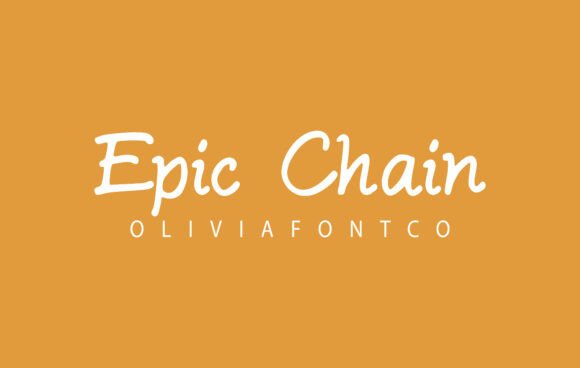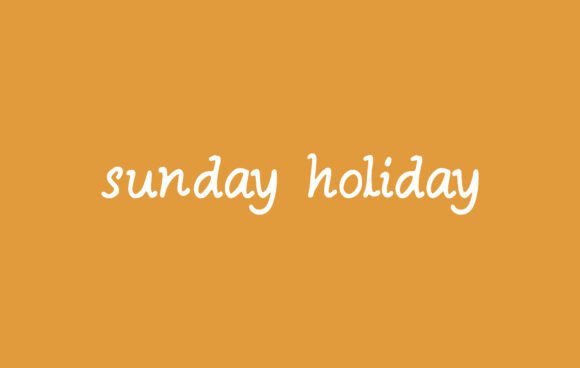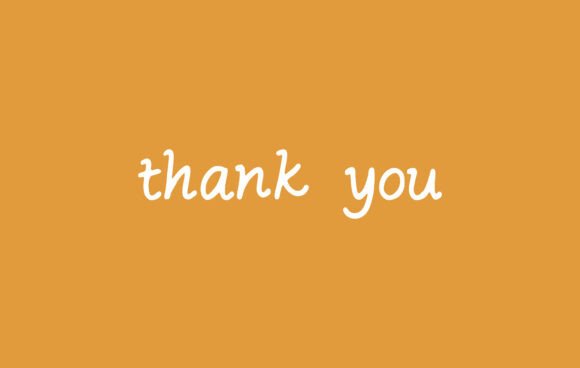
Epic Chain Font: Authentic Handwritten Script for Wedding Design
About the Epic Chain Font
Introducing the Epic Chain Font, a beautifully crafted typeface designed to elevate your creative projects. Epic Chain font is an authentic handwritten font with a romantic touch. Expertly designed to be a true favorite, this font has the potential to take your creative ideas to the highest level
Its romantic, handwritten style makes Epic Chain ideal for headlines, short text blocks in branding materials, and projects requiring a touch of elegance, such as wedding invitations or luxury product packaging. However, its less-than-optimal letter spacing and inherent irregularity make it unsuitable for body text or UI elements where high legibility over long passages is crucial.
The font’s personality is best described as romantic and slightly whimsical. To balance this, pairing it with a clean sans-serif like Lato for body copy or a geometric sans-serif like Montserrat for more modern applications creates a visually harmonious contrast. For a more luxurious feel, consider pairing it with a classic serif like Garamond.
Avoid using Epic Chain in contexts demanding stark minimalism or a highly modern, corporate aesthetic. Its charm lies in its hand-drawn imperfection; this works best when embraced, not suppressed by the overall design.
Epic Chain Font Usage Examples
Epic Chain Font Example